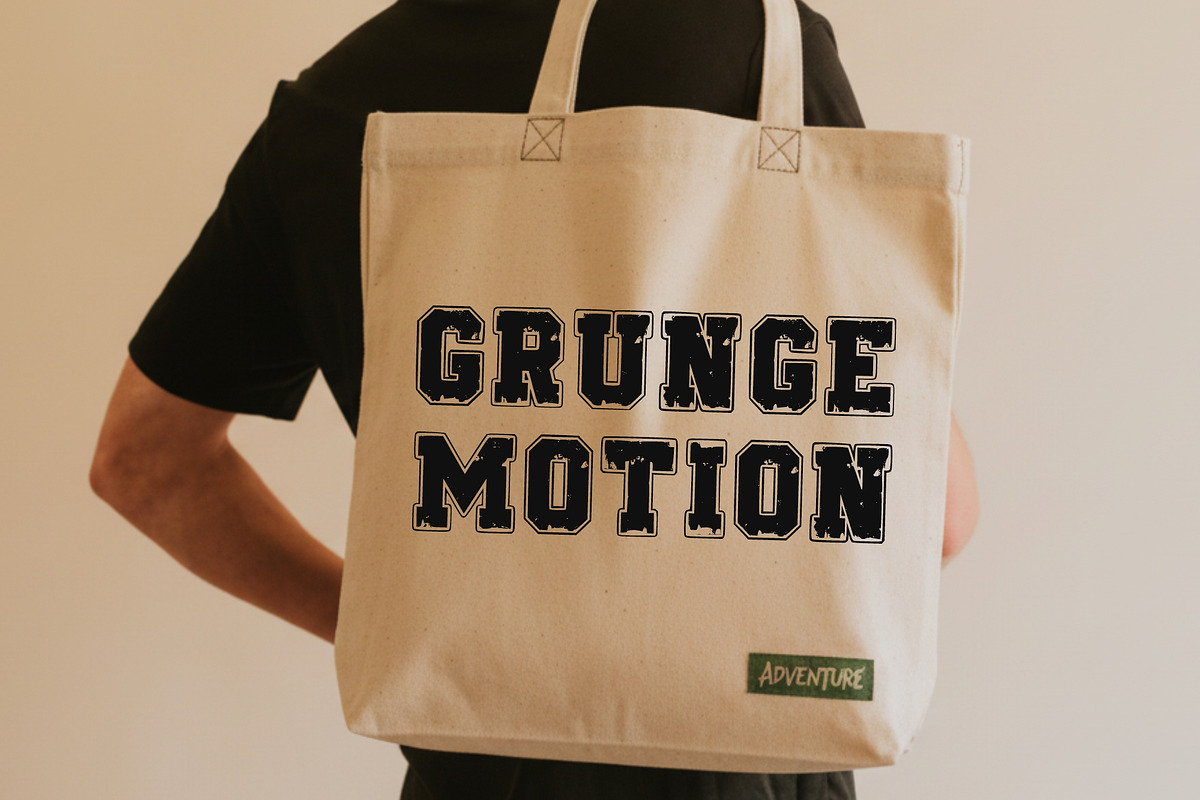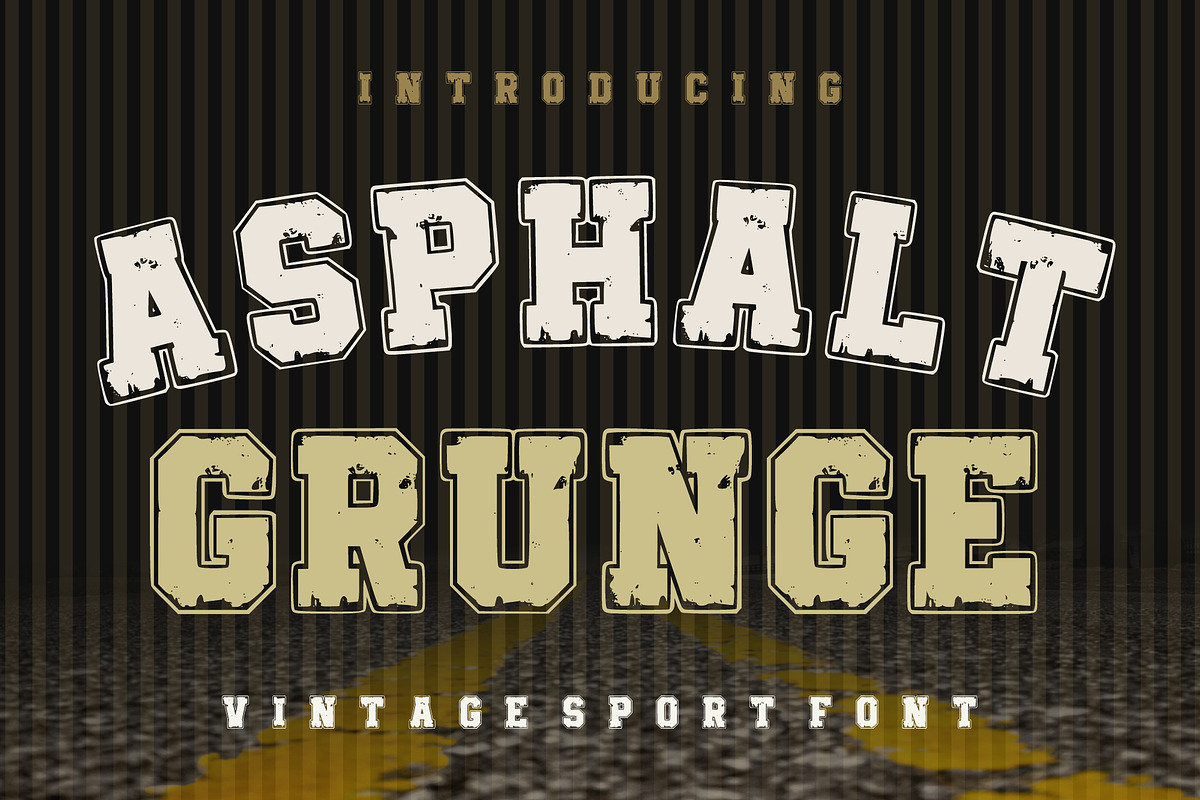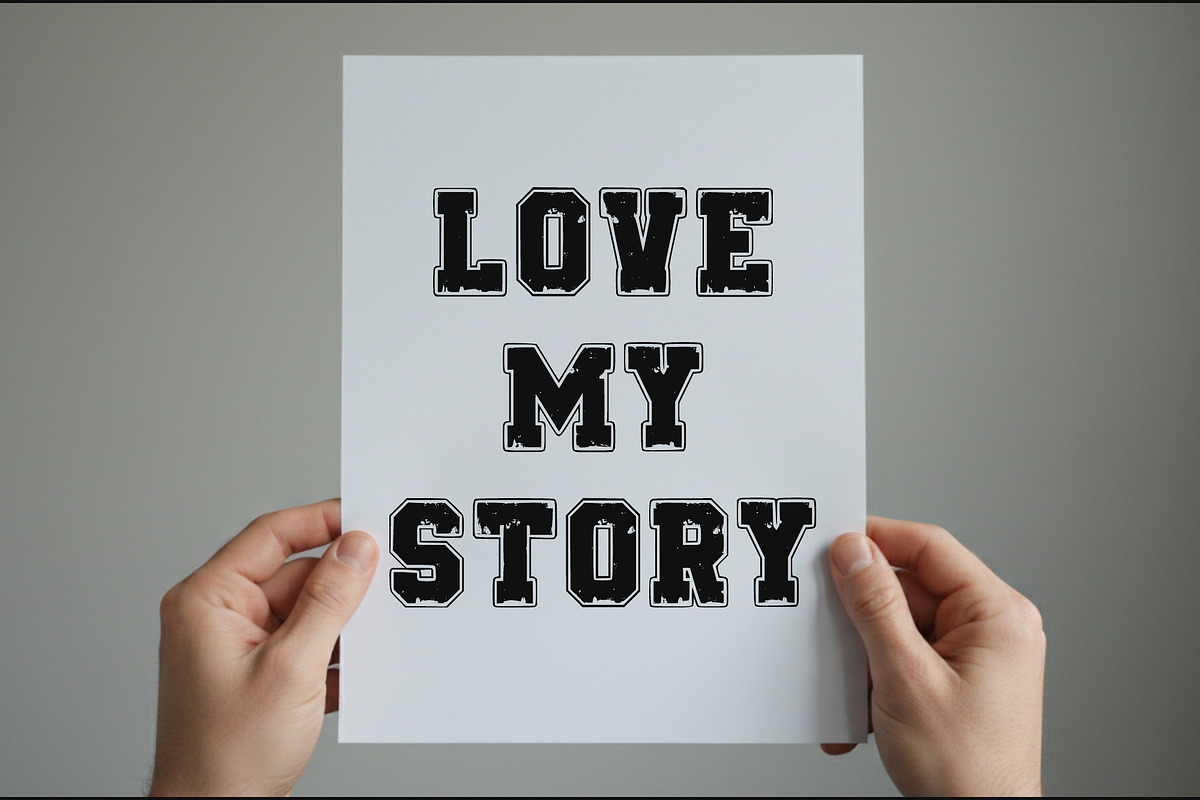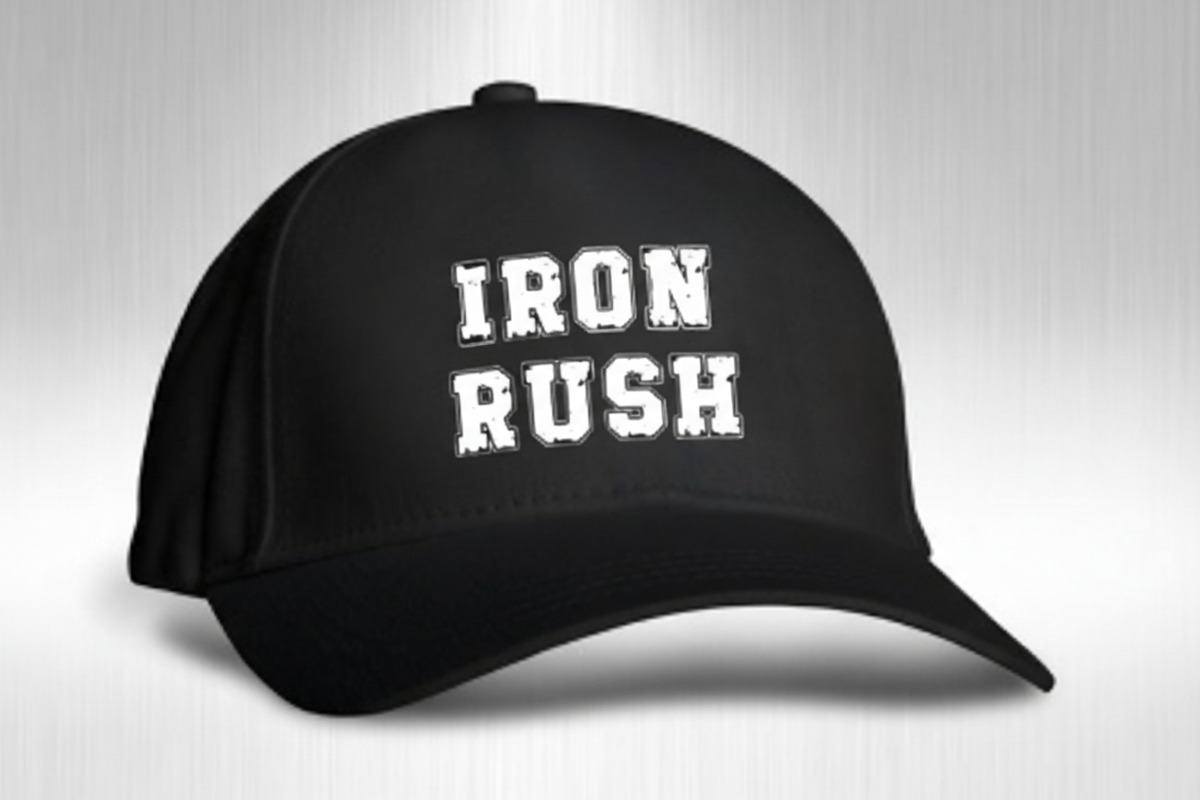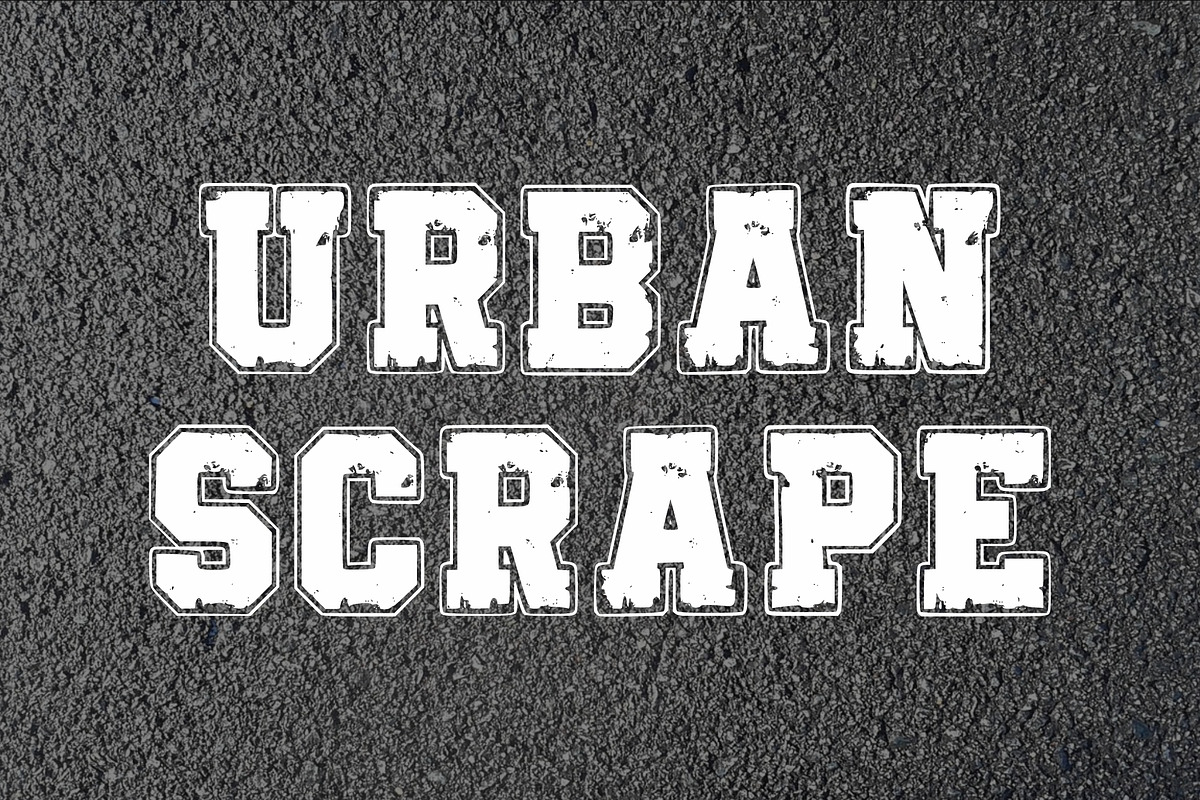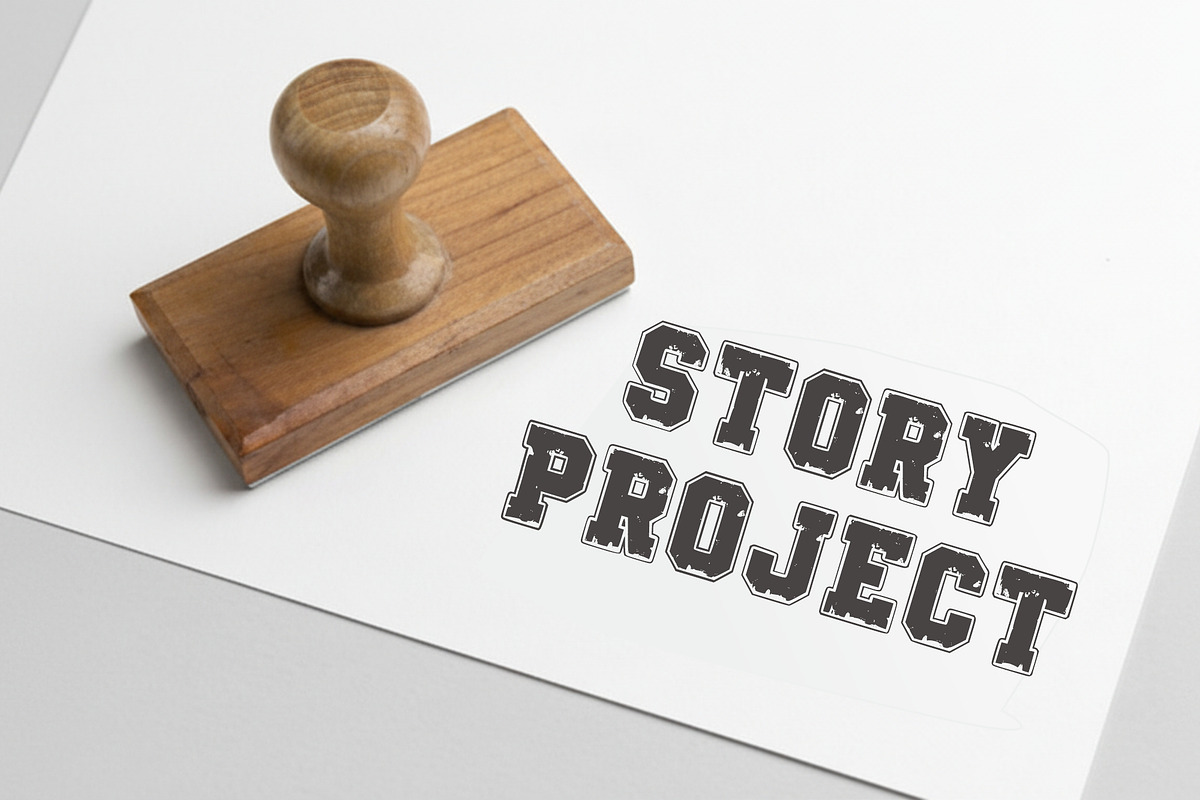
Asphalt Grunge
Asphalt Grunge is a bold and rugged display font inspired by vintage sports typography and worn asphalt textures. Designed with a distressed grunge effect, this font brings an authentic, raw, and energetic feel to your designs.
Perfect for sports branding, streetwear, posters, logos, merchandise, and bold headlines, Asphalt Grunge captures the spirit of competition and urban style. Its strong letterforms and rough edges make it stand out in both digital and print projects.
Whether you're creating retro athletic designs or edgy modern visuals, this font delivers impact and character.